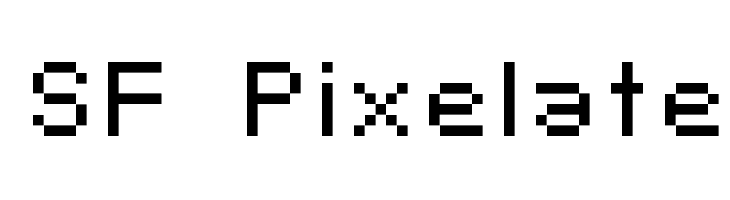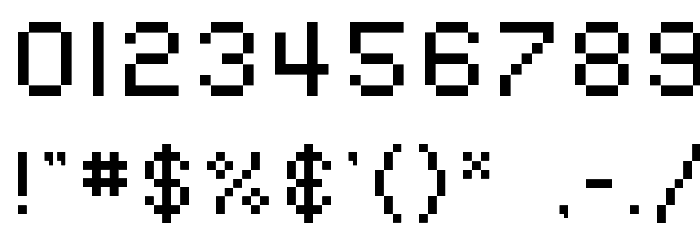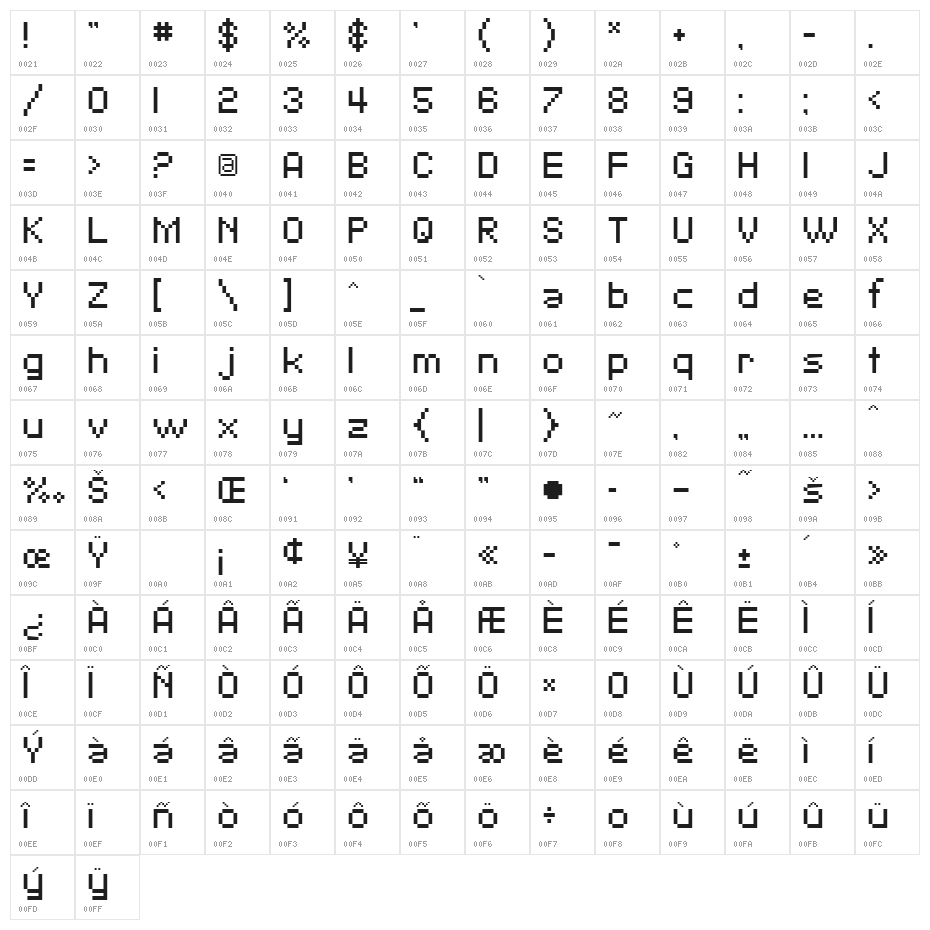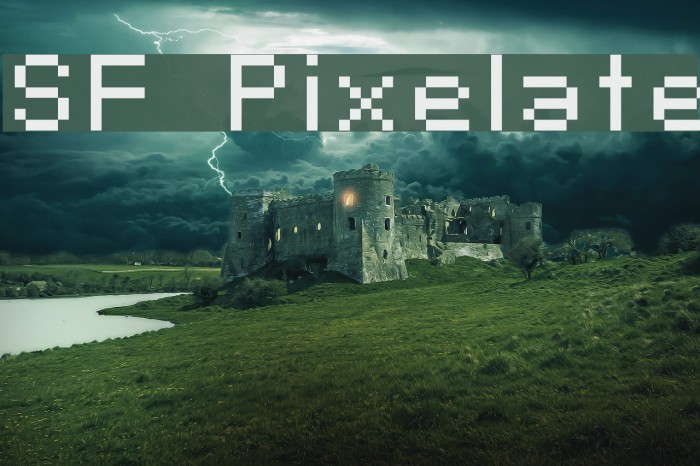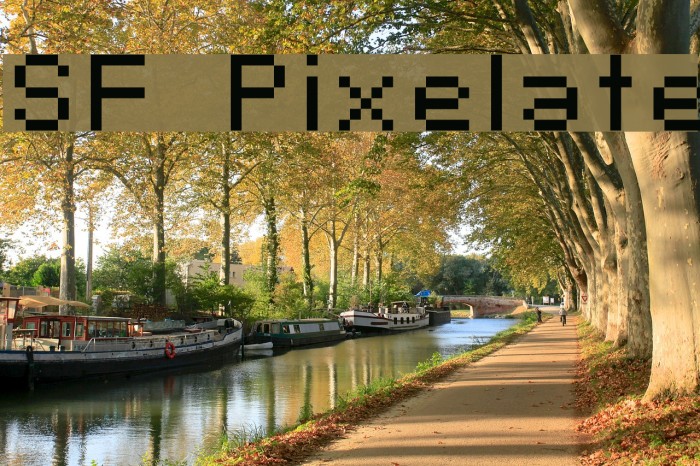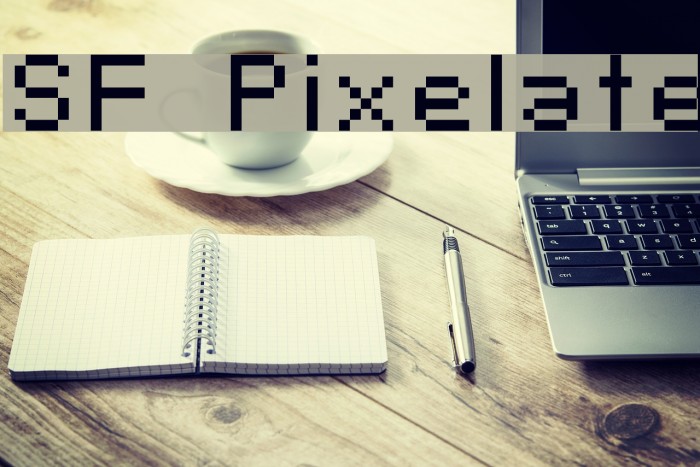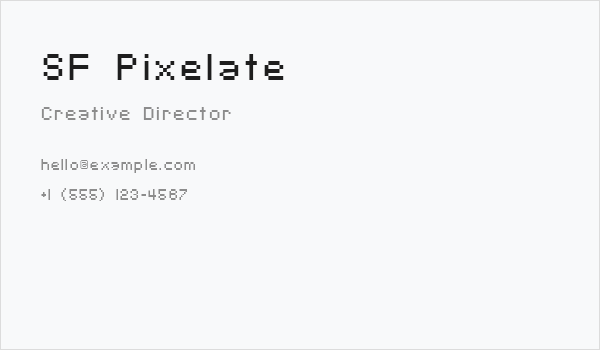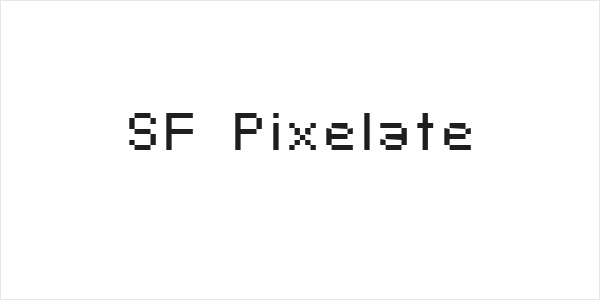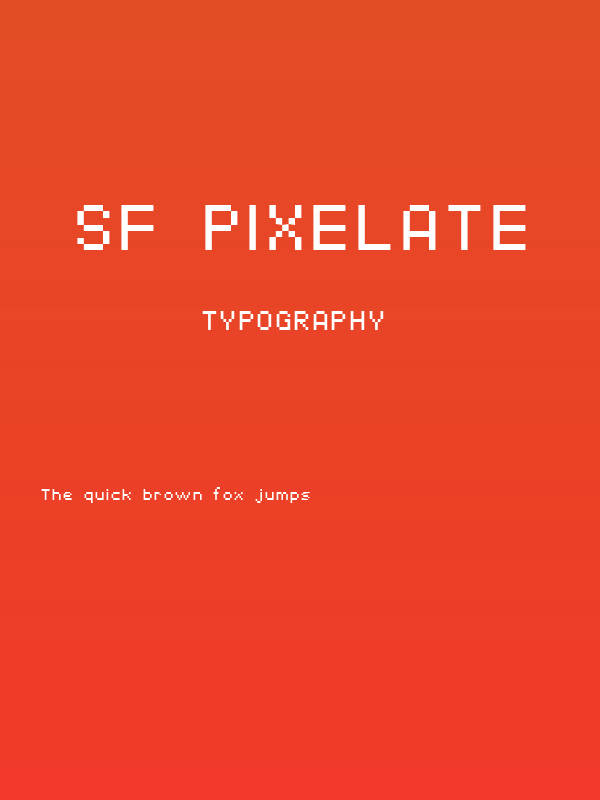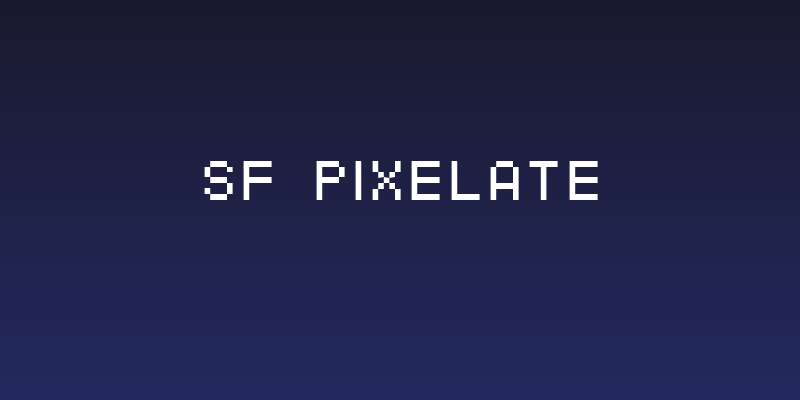
SF Pixelate Font
SF Pixelate Description
This font embodies a retro, pixelated style reminiscent of early digital displays and video games. Each character is constructed with a grid-like precision, giving it a distinctly blocky and geometric appearance. The uppercase and lowercase letters maintain a consistent height, enhancing readability while preserving the nostalgic aesthetic. Numbers and special characters are equally well-defined, adhering to the pixelated theme. This font is perfect for projects that aim to evoke a sense of nostalgia or pay homage to the digital era of the 1980s and 1990s.
| Overall Style | Vintage |
| Use Case | Logos, Headlines, Digital Art |
| Proposed Projects | Ideal for video game design, retro-themed posters, digital art, and tech-related branding. |